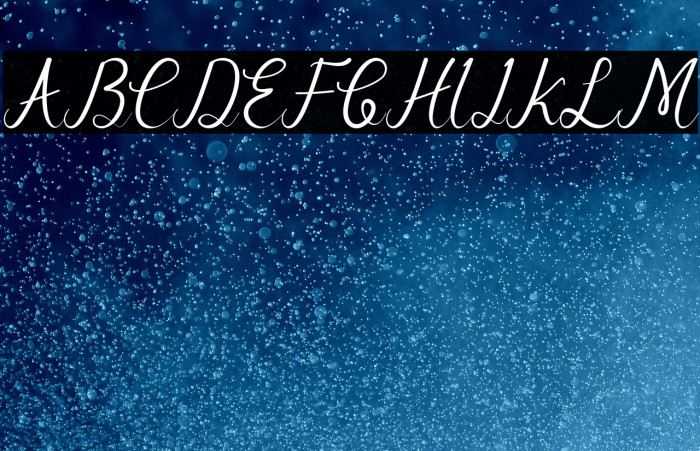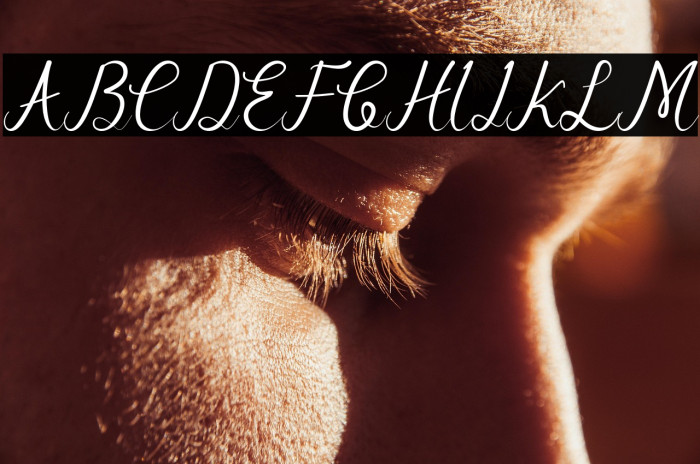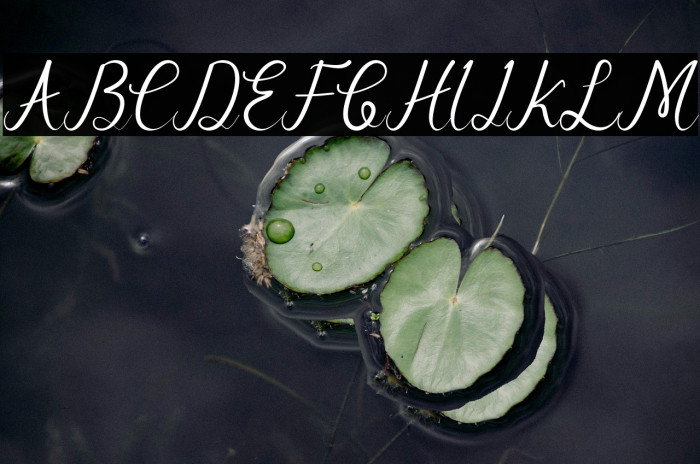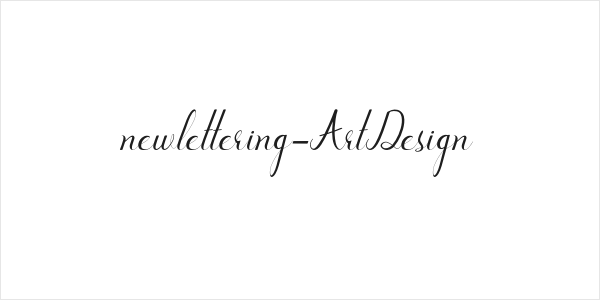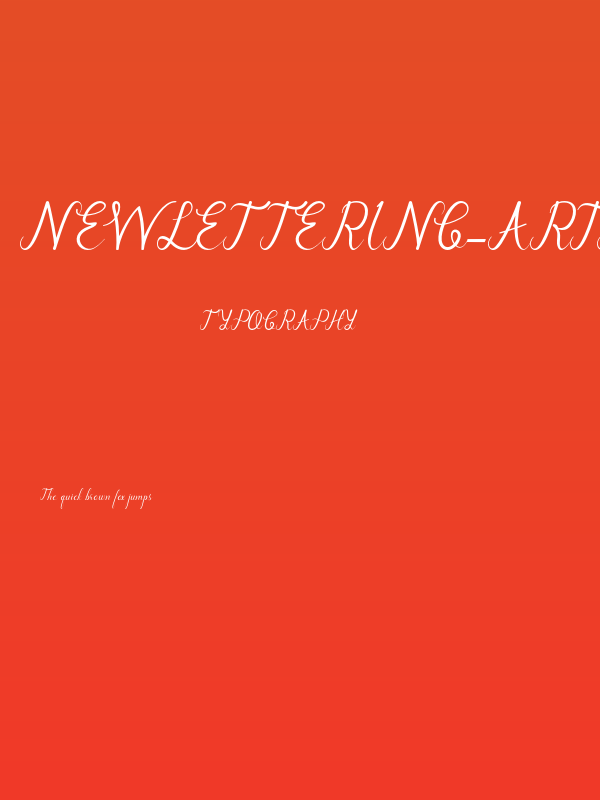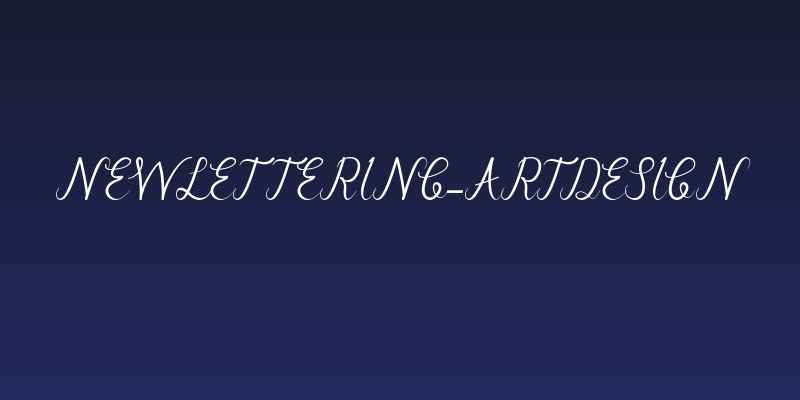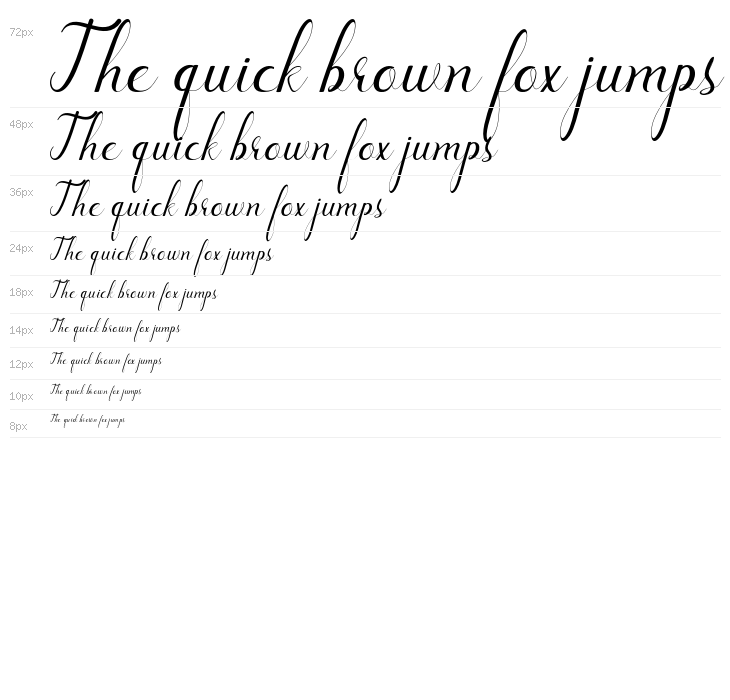
newlettering-ArtDesign Font
newlettering-ArtDesign Description
This elegant script font features flowing, cursive letters with a refined and sophisticated appearance. The uppercase letters are tall and graceful, with sweeping curves and delicate loops that convey a sense of fluidity and movement. The lowercase letters maintain a consistent style, with elongated ascenders and descenders that enhance the font's graceful aesthetic. The numerals are stylishly curved, complementing the overall script design. Special characters are thoughtfully integrated, maintaining the font's cohesive look. This font is perfect for projects that require a touch of elegance and sophistication.
| Proposed Projects | Ideal for wedding invitations, elegant branding, greeting cards, and upscale packaging. |